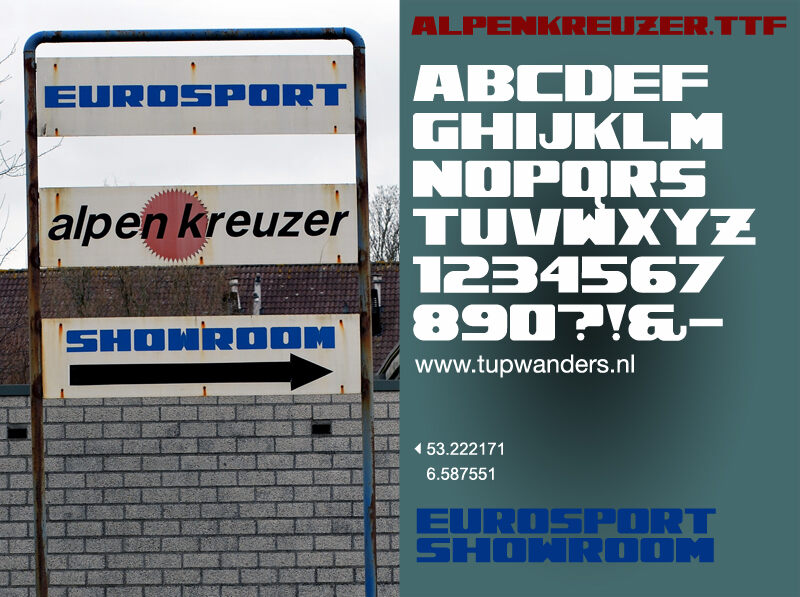
Alpenkreuzer by Tup Wanders is a free heavy geometric sans serif with broad capitals and a tightly packed silhouette. Straight sides, squared curves, and cut interior gaps give the lettering a machine-tooled look, with forms reduced to striking wedges and slots.
Its strongest role is in poster titles, sports branding, and music merchandise, where the dense shapes read like a custom emblem. The industrial construction also suits action entertainment graphics, especially projects built around speed, machinery, or competition.
Alpenkreuzer